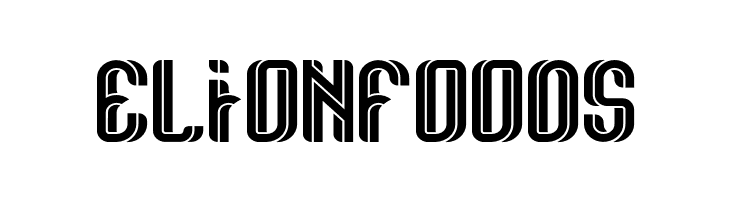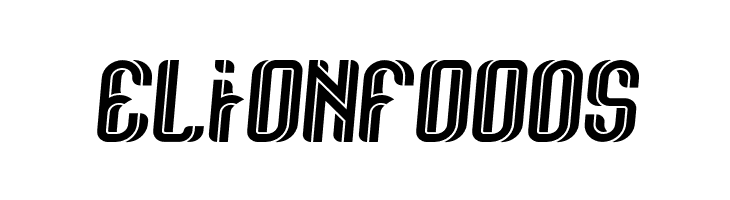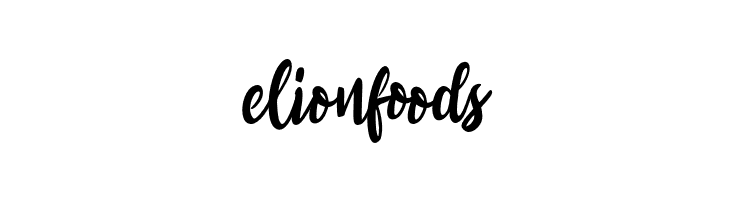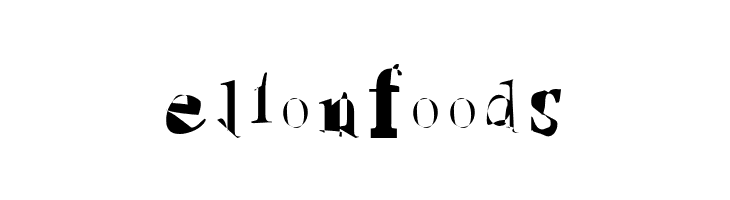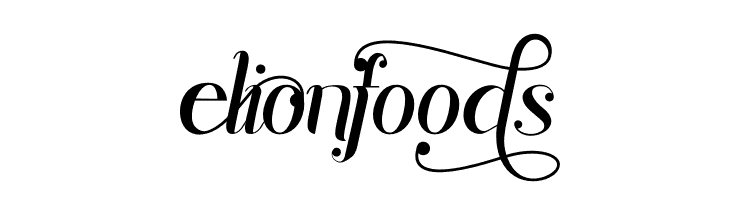
PolanWritings Narrow Italic Font
A narrow, italic handwritten font with a casual and informal style.
Codec Cold News Italic Font
A sleek, modern italic font with clean lines and a dynamic feel.
Zap Cannon Regular Font
A bold, geometric font with diagonal line patterns for a futuristic look.
Asgard Trial Xlight Backslant Font
A modern, backslanted font with thin, elongated characters and a sleek design.
Kitsch Text Trial Extralight Font
A refined and elegant font with thin, elongated strokes and slight contrast.
Poland Canned into Money Pro Font
A bold, geometric font with a modern and playful style, featuring angular characters and unique embellishments.
Dagtton Font
An elegant script font with flowing, interconnected letters and intricate flourishes.
MewTooHand Reversed Italic Font
A playful, reversed italic handwritten font with a casual style.
MewTooHand Italic Font
A playful, italic handwritten font with a casual and friendly style.
MewTooHand Condensed Font
A playful, handwritten font with a condensed and quirky style.
WarpStorm Font
A bold, fragmented font with a futuristic and chaotic design.
CiSf OpenHand Hairline OppositeOblique Font
A hand-drawn, thin, and whimsical font with a modern, minimalist style.
Corrode Italic Font
A bold, fragmented font with a corroded, edgy aesthetic.
Scribbler Black Font
A bold, playful handwritten font with a casual and friendly style.
Charger Slice Extended Font
A playful, dynamic font with a hand-drawn, quirky style.
Caveman SemiBold Font
A playful, hand-drawn font with bold, irregular strokes and a primitive style.
Captain Canaveral 3D Font
A bold, 3D font with a modern, impactful style and thick outlines.
Sweet Candy Font
A playful, flowing script font with a handwritten cursive style.
Arsenica Trial Italic Font
An elegant italic serif font with high contrast and flowing curves.
Asgard Trial Fat Backslant Font